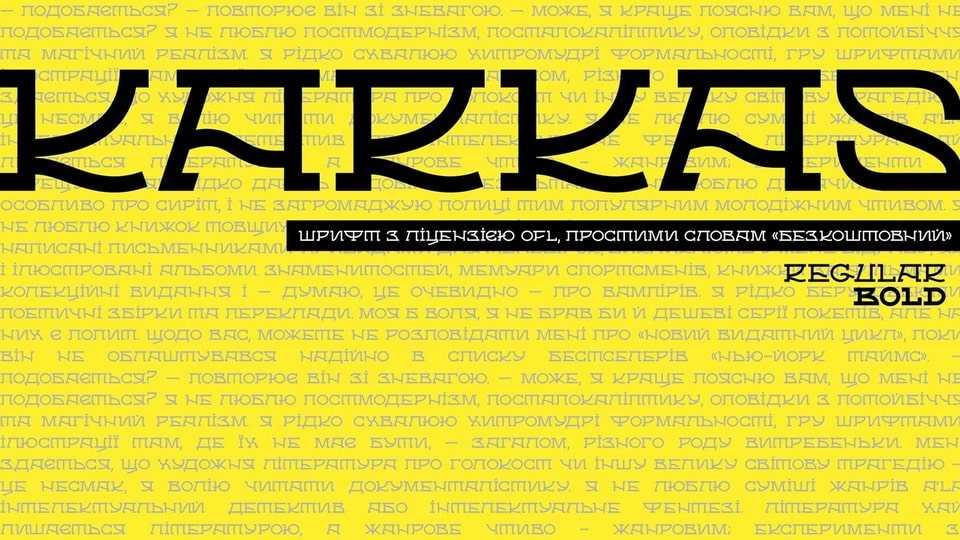
Download Karkas font, a bold and distinctive display typeface that draws inspiration from the rich heritage of Ukrainian art and typography.
Designer: Anna Kovalenko